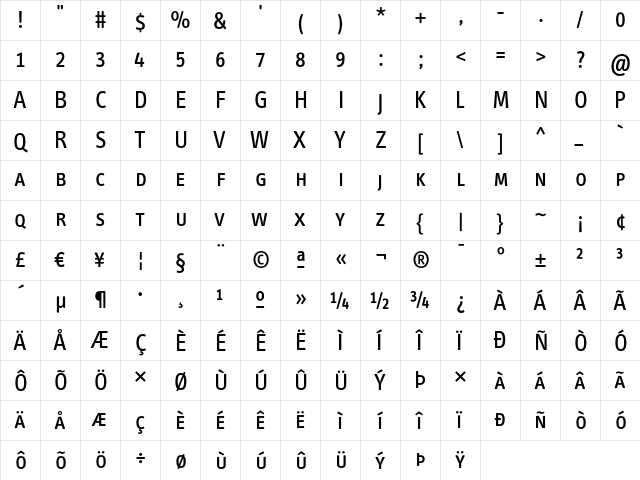
InfoTextBookTf Caps
Design Context for InfoTextBookTf Typeface
InfoTextBookTf offers clean, dependable letterforms without strong stylistic allegiance, making it a practical choice for designers who need flexibility.